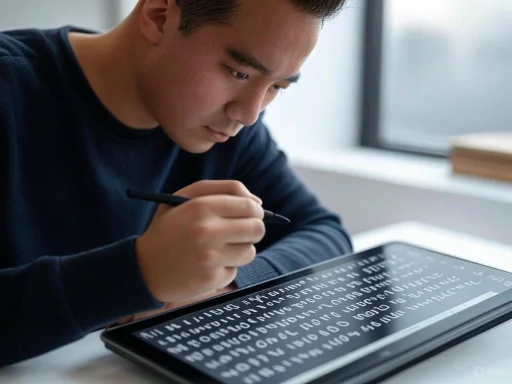
When Microsoft unveiled Font Maker during the Windows 10 era, it was one of those rare releases that genuinely blended novelty with practical whimsy—yet it has faded into near-obscurity, remembered by only the most attentive members of the Windows enthusiast community. If you look for Font Maker today, you’ll find it tucked away in the Microsoft Store, last updated years ago and bearing the stylistic hallmarks of a bygone Windows design language. Despite these cobwebs, the software stands as a fascinating emblem of a lost moment in Microsoft's approach to creativity, pen input, and the untapped potential of Windows tablets. Examining the story of Font Maker not only reveals its unique ambitions and its ultimate limitations, but also prompts a broader reflection on the trajectory of fun, user-driven features within the Windows ecosystem.
What sets Font Maker apart is its core premise: it lets you create a fully usable system font from your own handwriting. Rather than relying on sleek, professional typefaces designed by experts, Font Maker invites ordinary users—children, artists, or anyone with a compatible tablet and pen—to shape their digital workspace with something uniquely personal.
The creation process is, by all accounts, both simple and delightfully tactile. Upon launching the app, you are prompted to write out each letter of the alphabet (both upper- and lowercase), numbers, and a handful of standard symbols with your stylus. The inclusion of several sample sentences helps the software “learn” how you naturally connect characters, aiming to capture the nuances of your handwriting. According to both user anecdotes and the XDA-Developers' deep dive, the experience is akin to filling out a worksheet—but with the immediate, gratifying payoff of seeing your own handwriting spring to life across your device’s applications.
After inputting all the necessary characters, Font Maker lets you preview your custom font with longer passages of text. There’s a modest but useful set of customization options, including adjustments for size, spacing, and baseline alignment, which help smooth over quirks and enhance legibility. Most impressively, the output isn’t siloed to the app itself: you can export your creation as a legitimate font file (in OpenType format), install it system-wide, and share it with friends or across your own devices. For teachers preparing classroom materials, video creators adding a personal flourish, or kids simply experimenting, this makes Font Maker far more than a novelty.
Store reviews corroborate this disconnect. Many negative ratings appear to stem from frustrated users unaware of the app’s pen-only limitation. This friction could have been mitigated by clearer onboarding or perhaps a fallback mode for basic experimentation, even if the results would be less accurate.
While simplicity keeps the barrier to entry low, the lack of an “advanced mode” or the ability to manually add extra glyphs is a glaring deficit. Considering that Microsoft already groups character sets by language and script in tools like the Windows 11 Input Panel, there’s a strong case that extending Font Maker in this direction would have unlocked enormous creative potential for global users.
The retreat from this ambition is most visible in how little the platform supports pen input across its general ecosystem. After Windows 8’s much-criticized push for touch-centric design, Microsoft course-corrected hard—leaving the likes of the Surface Pro as niche, premium devices rather than mass-market schoolroom staples. That every aspect of Font Maker screams “experimental side project” only reinforces the sense that, after a brief burst of energy, both the app and the underlying vision were set aside.
But the truth, as critics of recent Windows releases often attest, is that the software now preloads with tools of questionable utility—countless news feeds, “Get Started” apps, and casual games—while omitting fun, self-expressive utilities that actually help teach users about what their device can do. There’s a strong argument to be made that an app like Font Maker, tied closely to hardware capabilities and human creativity, would have been a worthier inclusion in the OS than many of the throwaway extras that ship today.
Importantly, Font Maker is not alone in the market. Competitors such as Calligraphr (formerly MyScriptFont) exist as web-based font creation tools, some of which allow finger, mouse, or even upload-based glyph design. These alternatives, while often less tightly integrated with Windows, offer expanded character support and more sophisticated font-editing capabilities. Creative pros and typographers have grown to rely on specialist software like FontForge or Glyphs, albeit with a much steeper learning curve and cost.
Font Maker, had it been featured more prominently, might have joined that pantheon. Imagine a world where kids grew up attaching a “handwriting font” to their school PowerPoint slides, or where families signed digital greeting cards using their actual signatures digitized through Windows Ink. Such experiences would foster not only technical literacy but a warm, personal connection to devices that increasingly feel corporate and impersonal.
Microsoft’s focus on cloud-driven productivity, enterprise administration, and cautious minimalism has certainly improved Windows’ reliability. But it has also made the platform less surprising—and less delightful—for new users. Font Maker’s slow fade is a gentle but clear reminder of what’s lost when companies forget the value of "just for fun" software.
But consider this both an invitation and a caution. Font Maker is unlikely to see meaningful updates unless Microsoft rediscovers a taste for playful software. For those who depend on large character sets, alternate input options, or professional polish, look elsewhere—or combine Font Maker with more robust font editing tools. As it stands, Font Maker is a digital time capsule: an odd, joyful little project that stands as a critique of the seriousness overtaking consumer computing. Should Microsoft ever revive this kind of app, it won’t just be for nostalgia’s sake; it will be because creativity and fun deserve a home, even—or perhaps especially—on the world’s most widely used operating system.
Despite its flaws, Microsoft Font Maker remains available (for now) as a testament to a bolder, more experimental Microsoft. If you have a pen-enabled Windows device and a few spare minutes, it’s absolutely worth the download—if only to enjoy seeing your own handwriting take on new digital life. The app’s simplicity and charm encapsulate what’s best about user-driven features: creativity, immediacy, and a hint of whimsy in a computing landscape that is otherwise increasingly regimented and serious.But consider this both an invitation and a caution. Font Maker is unlikely to see meaningful updates unless Microsoft rediscovers a taste for playful software. For those who depend on large character sets, alternate input options, or professional polish, look elsewhere—or combine Font Maker with more robust font editing tools. As it stands, Font Maker is a digital time capsule: an odd, joyful little project that stands as a critique of the seriousness overtaking consumer computing. Should Microsoft ever revive this kind of app, it won’t just be for nostalgia’s sake; it will be because creativity and fun deserve a home, even—or perhaps especially—on the world’s most widely used operating system.